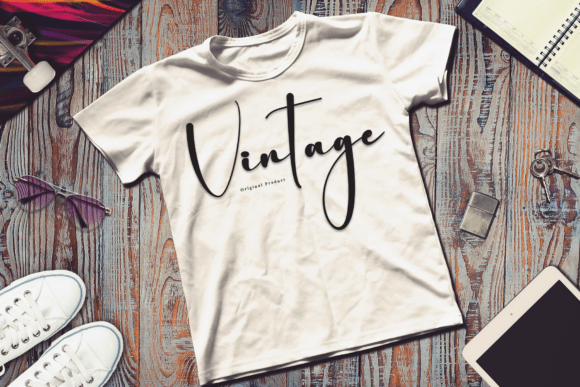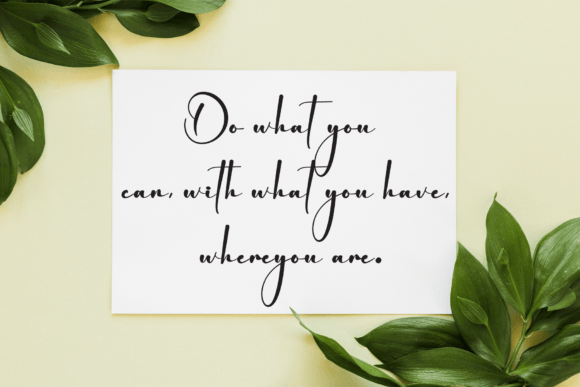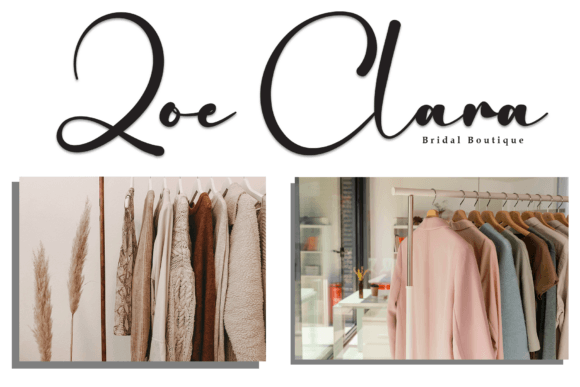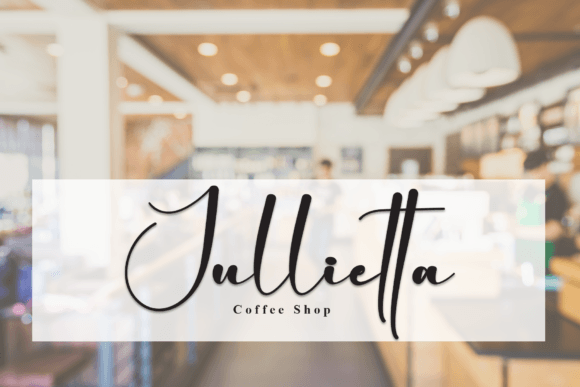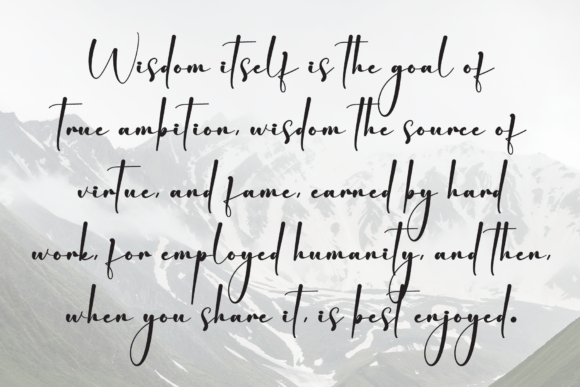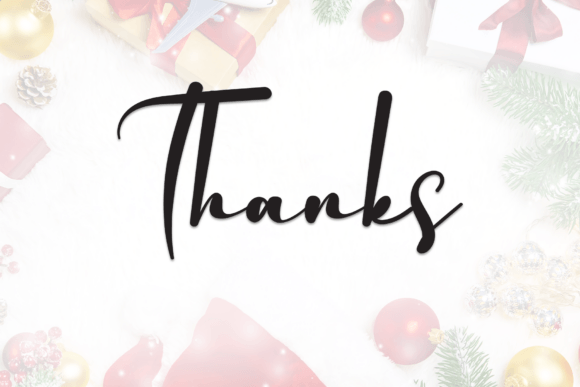
As designers, we’ve all been there – staring at a blank canvas, trying to spark that initial idea that sets the tone for our next project. It’s in these moments of creative limbo that we often find ourselves scouring the depths of typography libraries, searching for that perfect font that brings our vision to life. And then, it happens – we stumble upon the Birthday Christmas Font, a lovely and timeless handwritten font that effortlessly captures the essence of the holiday season.
This enchanting font is not just a pretty face; it’s a valuable tool for designers looking to create eye-catching logos, branding, and quotes that leave a lasting impression. With its unique and beautiful touch, the Birthday Christmas Font is the perfect addition to any design project, adding a touch of whimsy and personality that’s hard to resist.
Birthday Christmas Font Key Features
- Unique Characteristics: The Birthday Christmas Font features a unique blend of birthday and Christmas elements, creating a festive atmosphere perfect for holiday-themed designs.
Review of “Birthday Christmas Font”
I have to say, I was intrigued by the idea of a font that combines two of my favorite holidays – birthdays and Christmas. I decided to give it a try and here’s my honest review.
- The font’s playful and whimsical feel is perfect for festive designs.
- The combination of bright colors and fun characters is sure to grab attention.
- The font is highly customizable, allowing users to adjust the size, color, and style to fit their needs.
- The font includes a wide range of characters, including numbers, letters, and special symbols.
- The font may be too loud or overpowering for some designs, especially those that require a more subtle approach.
- The font’s customization options can be overwhelming for beginners, making it difficult to achieve the desired look.
- The font may not be suitable for professional or corporate designs, where a more traditional or formal font is preferred.
Overall, I think the “Birthday Christmas Font” is a great option for designers who want to add a fun and festive touch to their designs. While it may have some limitations, it’s perfect for social media graphics, party invitations, and other holiday-themed projects. With a little practice and patience, users can unlock the full potential of this font and create some amazing designs.